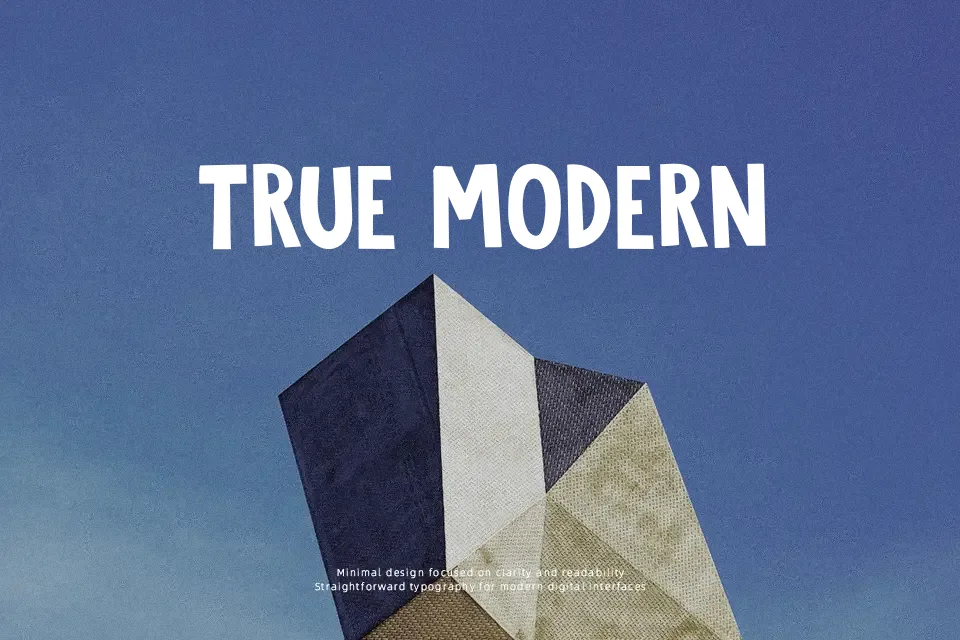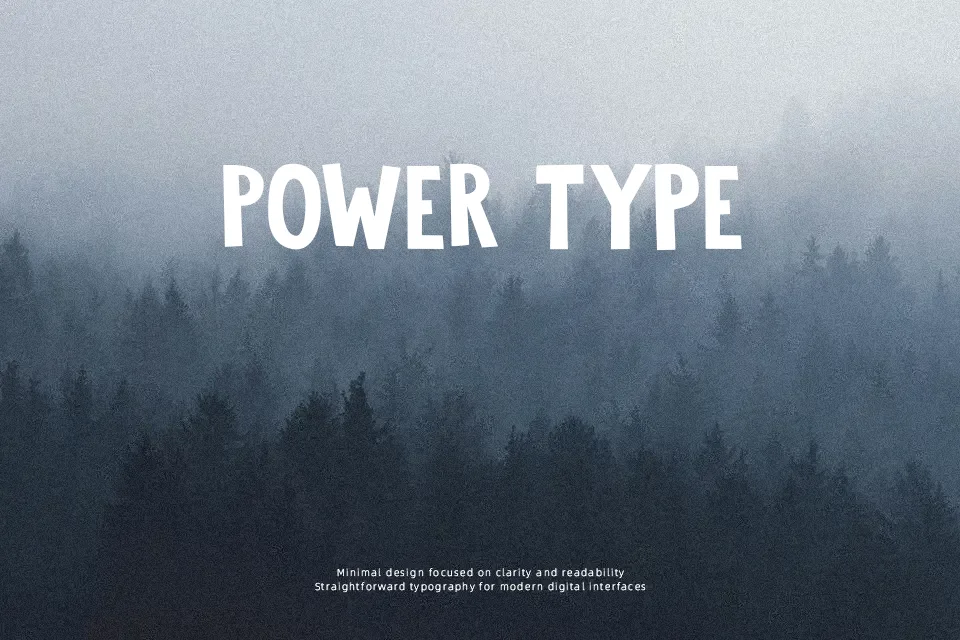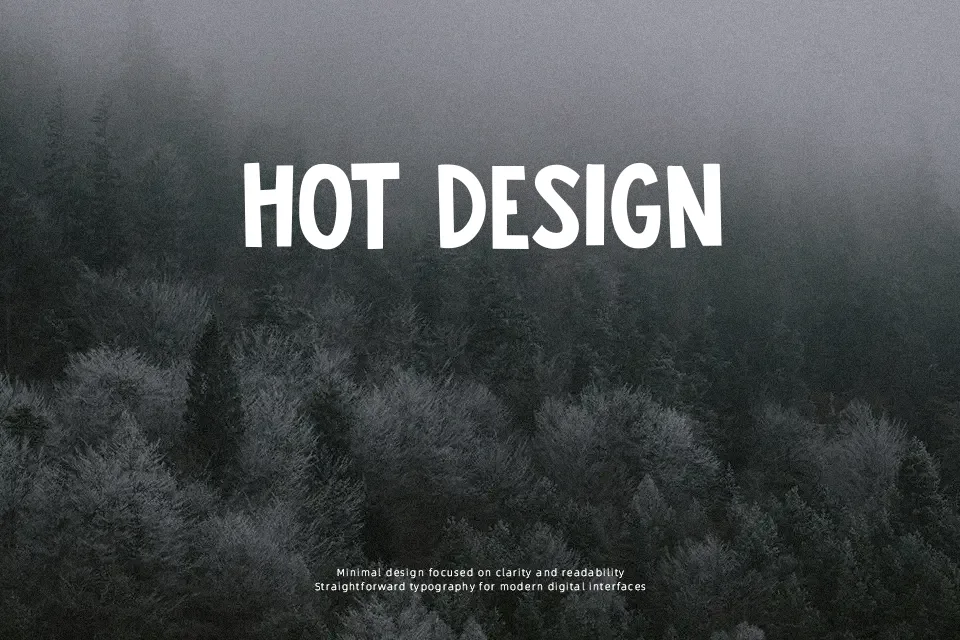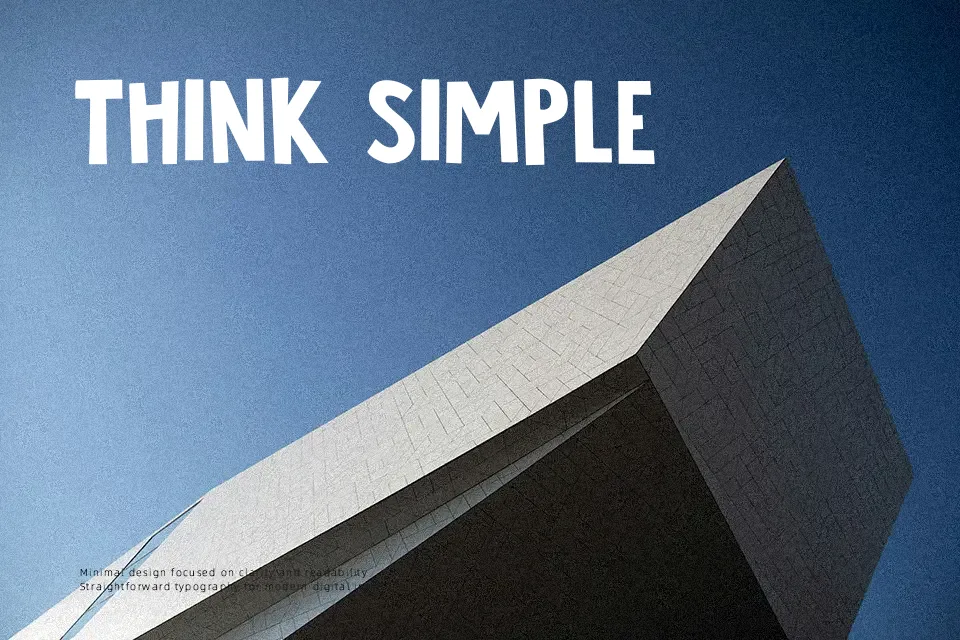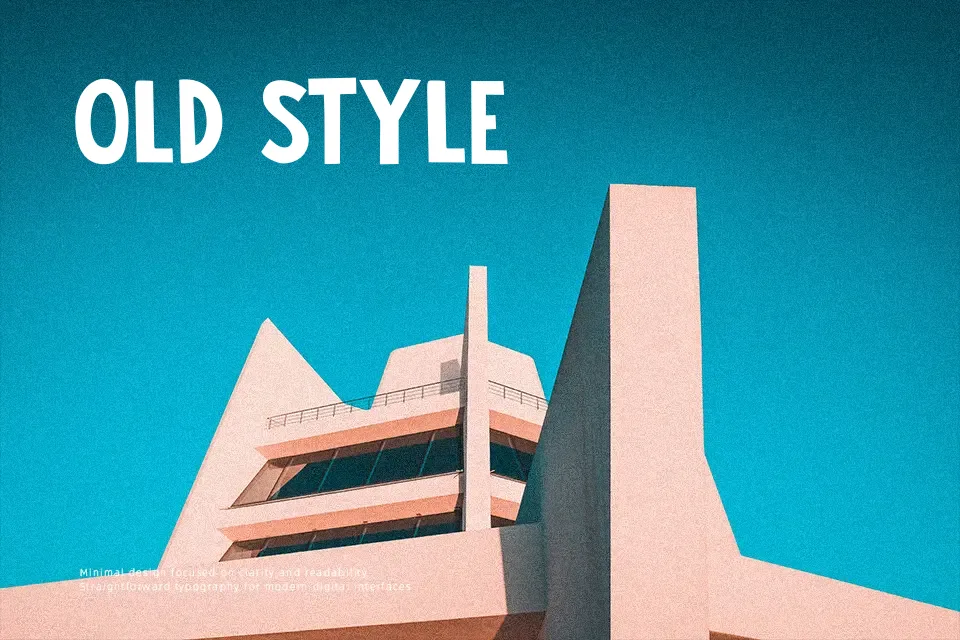
DK Jalebi Font
DK Jalebi Font is a heavy, all-caps display style with thick strokes, slightly irregular structure, and compact spacing that gives each word a bouncy, hand-shaped feel. The forms look cartoonish without becoming childish, so it works well on food labels, market posters, event graphics, and playful brand marks that need instant visibility. It has enough weight for short headlines and packaging titles, but the uneven rhythm can feel noisy in longer lines. If you want polish and restraint, this is probably not the right direction. If you need warmth, flavor, and a bit of visual mischief, it holds attention well.
snack packaging,festival posters,kids branding,shop signs
body text,formal editorial,minimalist branding,dense ui labels
Perfect for branding, headline, and kids, with a bold and cartoon style.